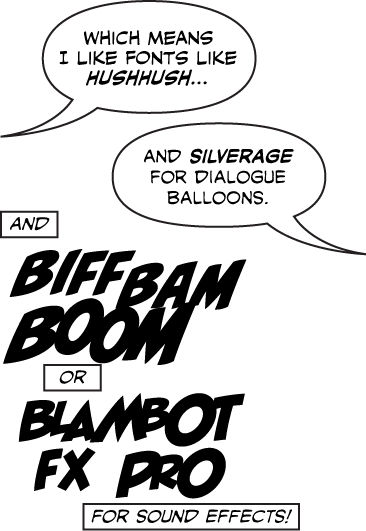
My font preferences have become rather specialist since I managed to get enough work to become a full-time comic book letterer!
Arial (usually Narrow) deserves respect even though there's a lot of idiots that abuse it.
Helvetica
Akzidenz-Grotesk certainly.
Futura
Univers
Museo Sans
MGOpen Moderna is incredible but spaced tightly for a gothic font.
"But whatta 'bout serif faces?"
Serifs are often schlocky and unmemorable. Lemme go through Font Book and find a serif that doesn't suck.
Georgia
Goudy Bookletter 1911
OFL Sorts Mill Goudy
The non-schlocky Bodoni faces.
Museo Slab and regular Museo
and anything else Jos has made.
Favorite typefaces:
Optima Bold Italic 18 pt
Helvetica Neue Ultralight Italic 16 pt
Delicious Heavy, any pt
Favorite fonts:
MuseoSans
Museo
Museo Slab
Archer
Gotham (overuse notwithstanding)
Bree
Ronnia
Skolar
Meta
AvantGarde Gothic Pro with the original ligatures
Helvetica Neue FTW
I'm really a Helvetica Neue person with the tracking decreased quite noticeably.
Any minimalist sans-serif font is OK with me, but other than Helvetica Neue I have no literal favourite font, as some could be horrible for one project, and others could be more than ideal for another.
Your list of fonts is actually a list of faces, and your list of favorite typefaces is a list of fonts.
Great choices, though.
Serif: Day Roman, Riven, Garamond Pro
Sans-serif: Helvetica Neue (overused, I know, but so good when used appropriately) & Univers.
To be honest, I don't use one font more than another because it's a favourite - I decide each project as it comes and use what suits it best. 🙂
Your list of fonts is actually a list of faces, and your list of favorite typefaces is a list of fonts.
Great choices, though.
A font is the packaged collection of glyphs. A typeface is the design of the constituent elements within a font. Therefore, I like the design of Helvetica Neue Ultralight Italic, but I don't like the rest of the font that is Helvetica Neue. A good analogy is that a typeface is like a song, while a font is like an album/CD. You buy a CD which contains lots of different songs. You buy a font which contains lots of different typeface/glyph designs. I stand by my definitions.
I've always gone by the reverse of your analogy, but that's a whole other thread.
I never ever use names of american cities as a font.
Also am I the only one who hates Papyrus more than anything in the world. Oh I hate it soo much!!!
utopia, century gothic.
Great Response! I've been designing since 1989 and was surprised at how many people listed these fonts! I had this one creative director who absolutely banned any fonts that were named after cities...period. Also the use of most free fonts...most pre-press depts. prefer that you stay within the Adobe library...which with over 2,000 fonts plenty to choose from!
Univers is an excellent font...especially if you have the sub-fonts as well.
It's so hard to pick but here are a few of my favorites.
Myriad Pro
Bauhaus
Trajan Pro (Yeah, I know it's popular with the movies, over use a side I love it)
Adobe Garamond Pro
I like Baruta, it's the font I use for my "companies" logo.